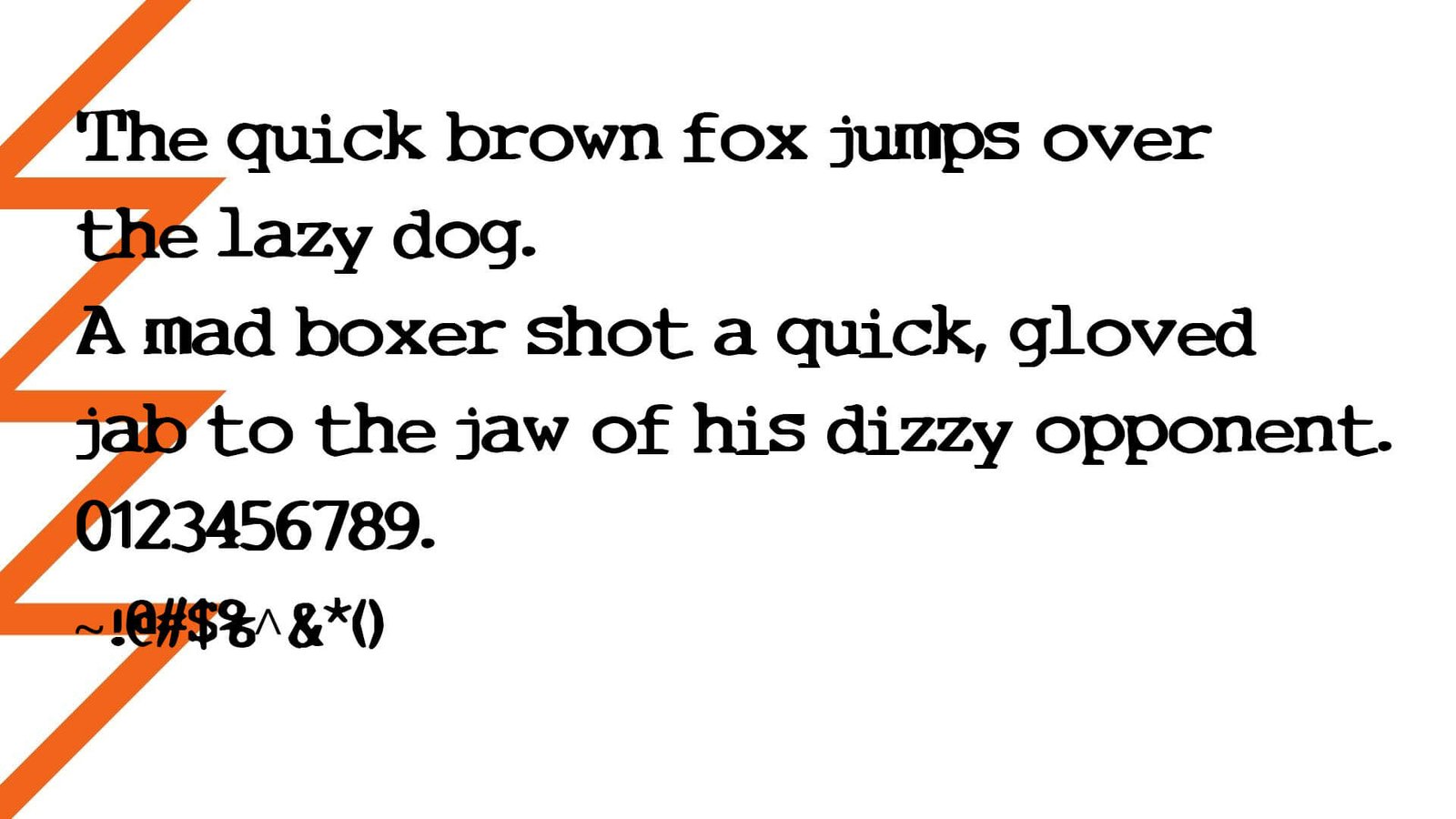
Perfect Type Lab designed and released the Conspiracy font. While there are numerous fonts to choose from, not all are as impactful. The texture design of this font sets it apart from the rest, making it a favorite among top designers for their projects.
It is a display typeface. This rough and pleasant font has a vast variety of glyphs. Designers from all over the world utilize this font to make the design better. TTF and OTF both file formats are available.
Conspiracy Font Family
| Designer | Nerfect type Laboratory |
| Type | Display |